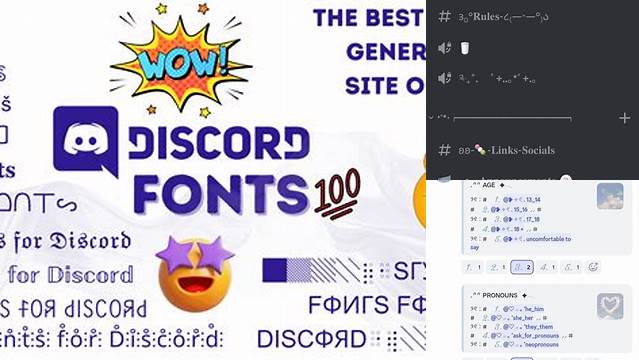
Awesome Discord Fonts: Make Your Server Stand Out!
Hey Discord fanatics! 👋 Are you looking to spice up your server and make it stand out from the crowd? Want to add a touch of personality and flair to your text? Well, you've come to the right place! Today, we're diving deep into the world of cool fonts for Discord servers. We'll explore various font styles, how to use them, and some awesome tools to help you along the way. Get ready to transform your server's visual appeal and impress your members! Let's get started and make your Discord server the envy of everyone!
Unleashing the Power of Fonts: Why They Matter for Your Discord Server
Alright, guys, let's talk about why fonts are so darn important for your Discord server. You might be thinking, "It's just text, right? Who cares?" But hold on! Fonts are much more than just a way to display words; they are a powerful tool for enhancing your server's brand, personality, and overall user experience. Think about it: your server is like your digital home. You want it to be inviting, engaging, and a reflection of your community's vibe. Fonts help you achieve all of that and more. Choosing the right fonts can significantly impact how your members perceive your server. A well-chosen font can make your server look professional, fun, mysterious, or anything else you want it to be. It sets the tone and creates a visual identity that members will remember. Imagine a server dedicated to gaming. Using a bold, futuristic font can instantly communicate the theme and attract like-minded gamers. On the other hand, a server for a book club might benefit from a more elegant and classic font to reflect the literary nature of the community. Furthermore, fonts improve readability and make your messages more accessible. No one wants to squint to decipher tiny or overly stylized text. Clear, legible fonts ensure your members can easily read and understand your announcements, rules, and other important information. This is especially crucial for large servers with active discussions. Clear communication is key to a thriving community, and fonts play a vital role in achieving that. By carefully selecting and using fonts, you can create a unique and memorable experience for your members. You can establish a consistent brand, foster a strong sense of community, and make your server a place people enjoy spending time in. So, don't underestimate the power of fonts. They are the secret ingredient that can transform your Discord server from ordinary to extraordinary.
The Psychology of Fonts: How Different Styles Affect Perception
Guys, ever thought about how fonts can mess with your head? Seriously, different font styles aren't just about looks; they actually trigger different feelings and associations in our brains. It's like a secret language that influences how people perceive your server. Let's dive into the psychology behind fonts. Serif fonts, like Times New Roman or Georgia, are those with little decorative strokes (serifs) at the end of letters. These fonts often give off a vibe of tradition, reliability, and trustworthiness. They're like the strong, dependable friend you can always count on. You might see them used in news articles or official documents because they convey a sense of authority and professionalism. Sans-serif fonts, on the other hand, ditch the little strokes. They're clean, modern, and often seen as more contemporary. Think Arial or Helvetica. They're like the cool, minimalist friend, perfect for a tech-savvy or modern server. They're easy to read and convey a sense of clarity and simplicity. Then you've got script fonts, which mimic handwriting. They can be elegant, playful, or even romantic. They're like the artistic friend who brings a touch of flair and personality. However, use them sparingly, as they can be tricky to read at times. Display fonts are those that grab your attention. They're bold, unique, and designed for headlines or short bursts of text. They're like the extroverted friend who's always the life of the party. But, again, use them strategically to avoid overwhelming your members. The psychology of fonts is all about matching the right style with your server's theme and personality. Think about what message you want to send. Do you want to appear professional, fun, mysterious, or creative? Your font choice will play a huge role in how your members perceive you. Consider using a combination of different font styles to create visual interest and highlight important information. Just remember to maintain consistency and readability. Ultimately, understanding the psychology of fonts empowers you to make informed decisions and craft a visually compelling Discord server that resonates with your community.
Font Families and Their Impact: Serif, Sans-Serif, and Beyond
Alright, let's break down font families, because these are the building blocks of your server's visual style. Knowing the differences between serif, sans-serif, and other font families is like having a secret weapon in your design arsenal. First up, we have serif fonts. Remember those tiny decorative strokes at the ends of letters? Yep, those are serifs! Fonts like Times New Roman, Georgia, and Garamond fall into this category. Serif fonts often evoke feelings of tradition, formality, and trustworthiness. They are excellent choices for conveying a sense of established authority or a classic feel. They are commonly used in print media like books and newspapers, where they aid readability in large blocks of text. Next, we have sans-serif fonts.